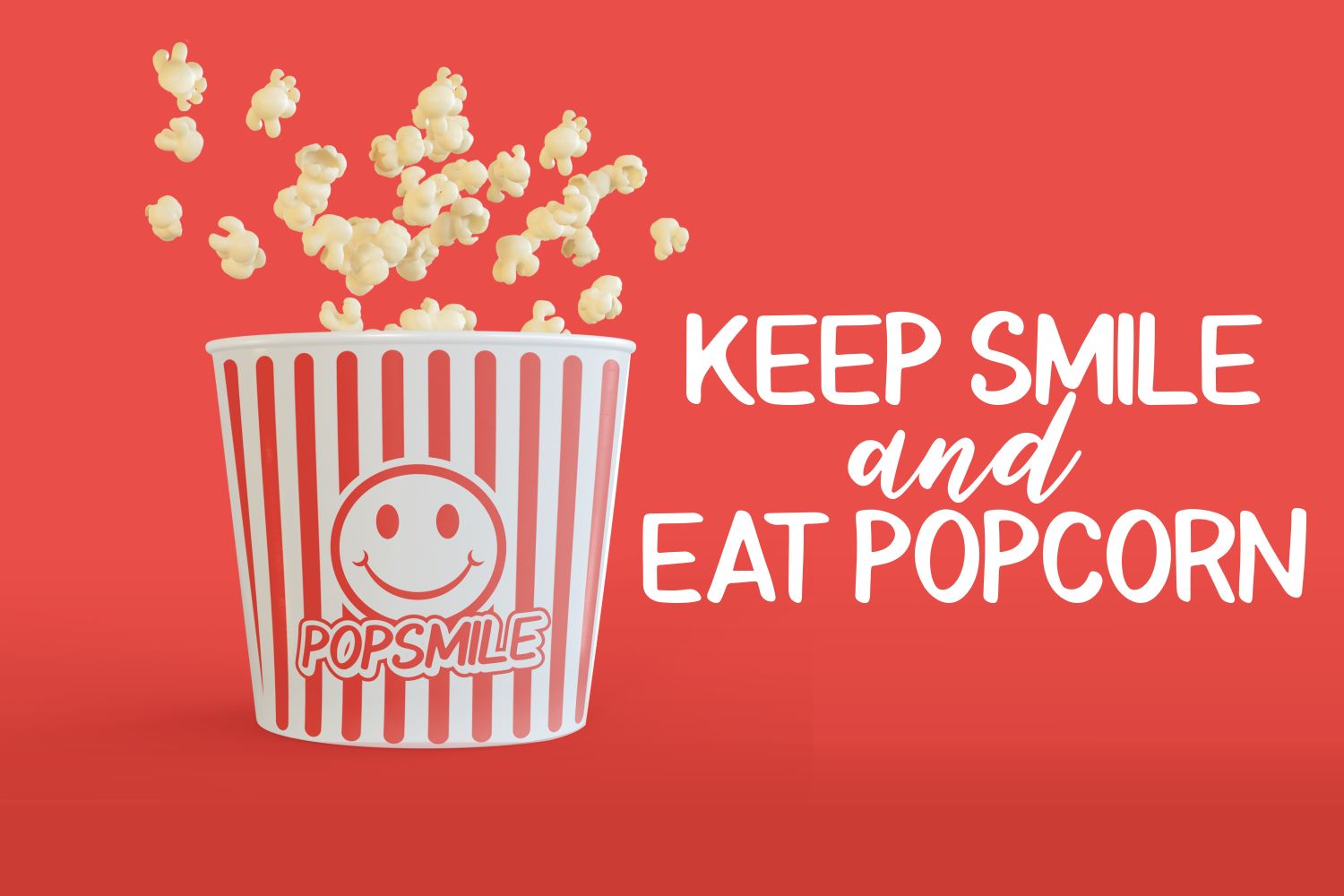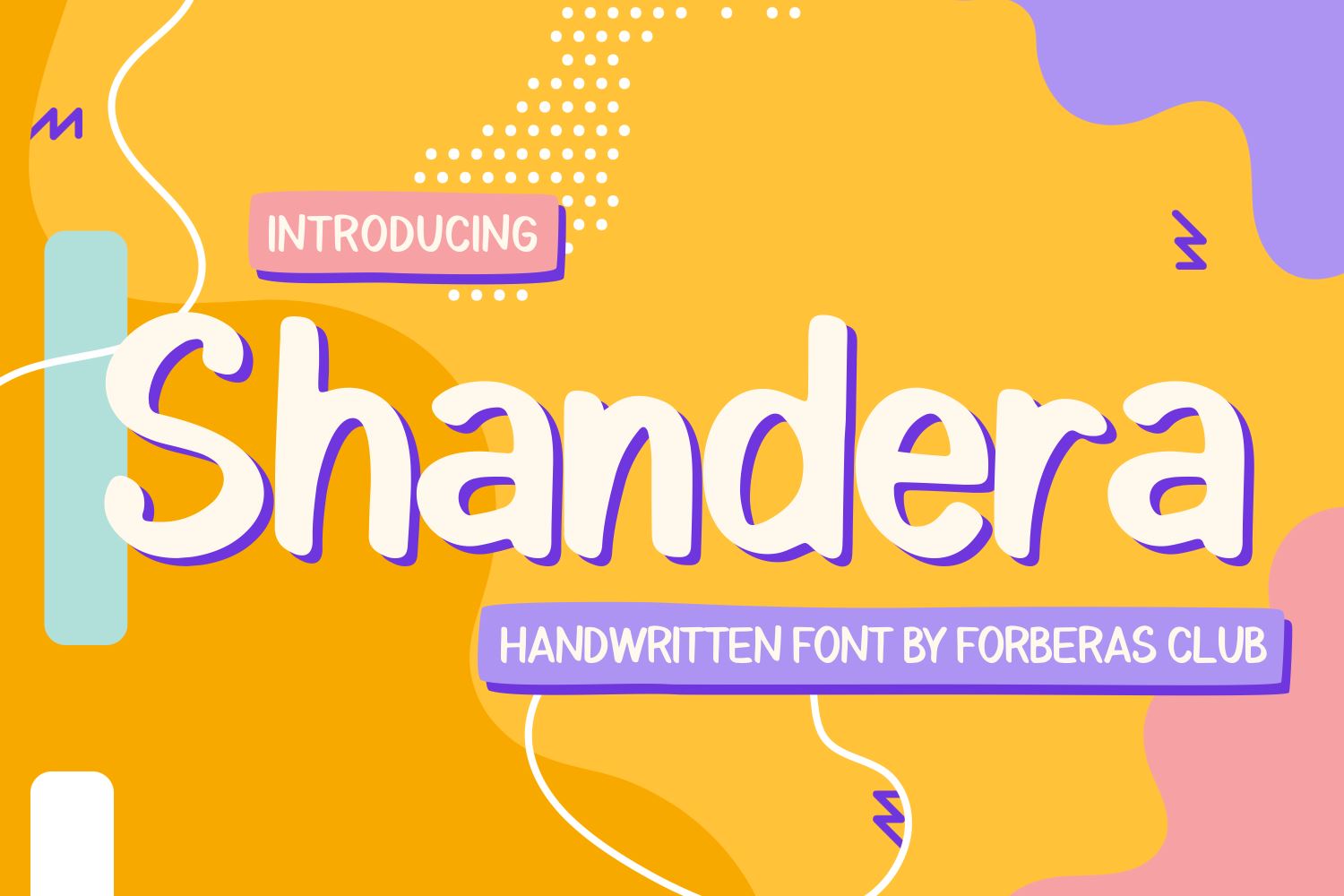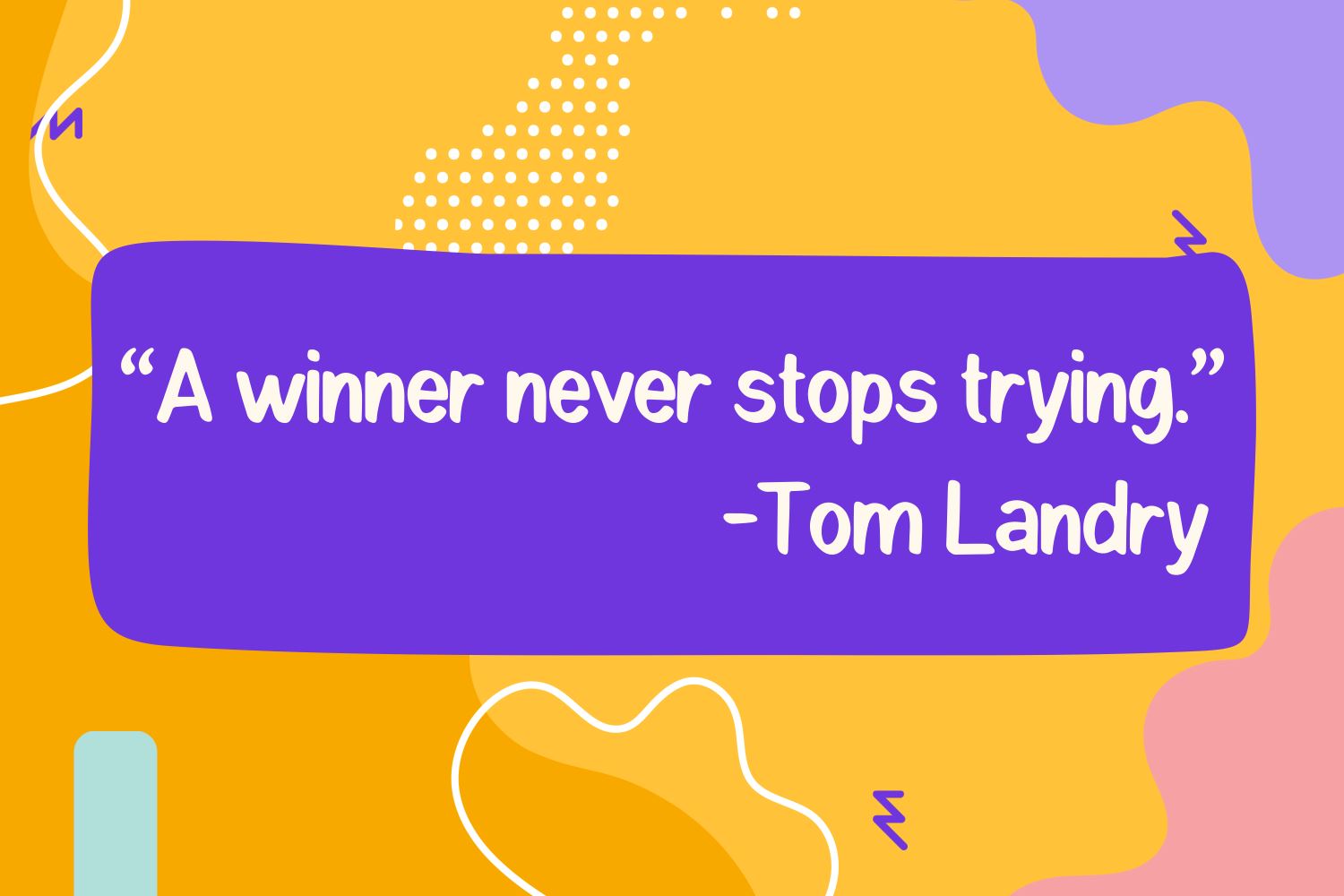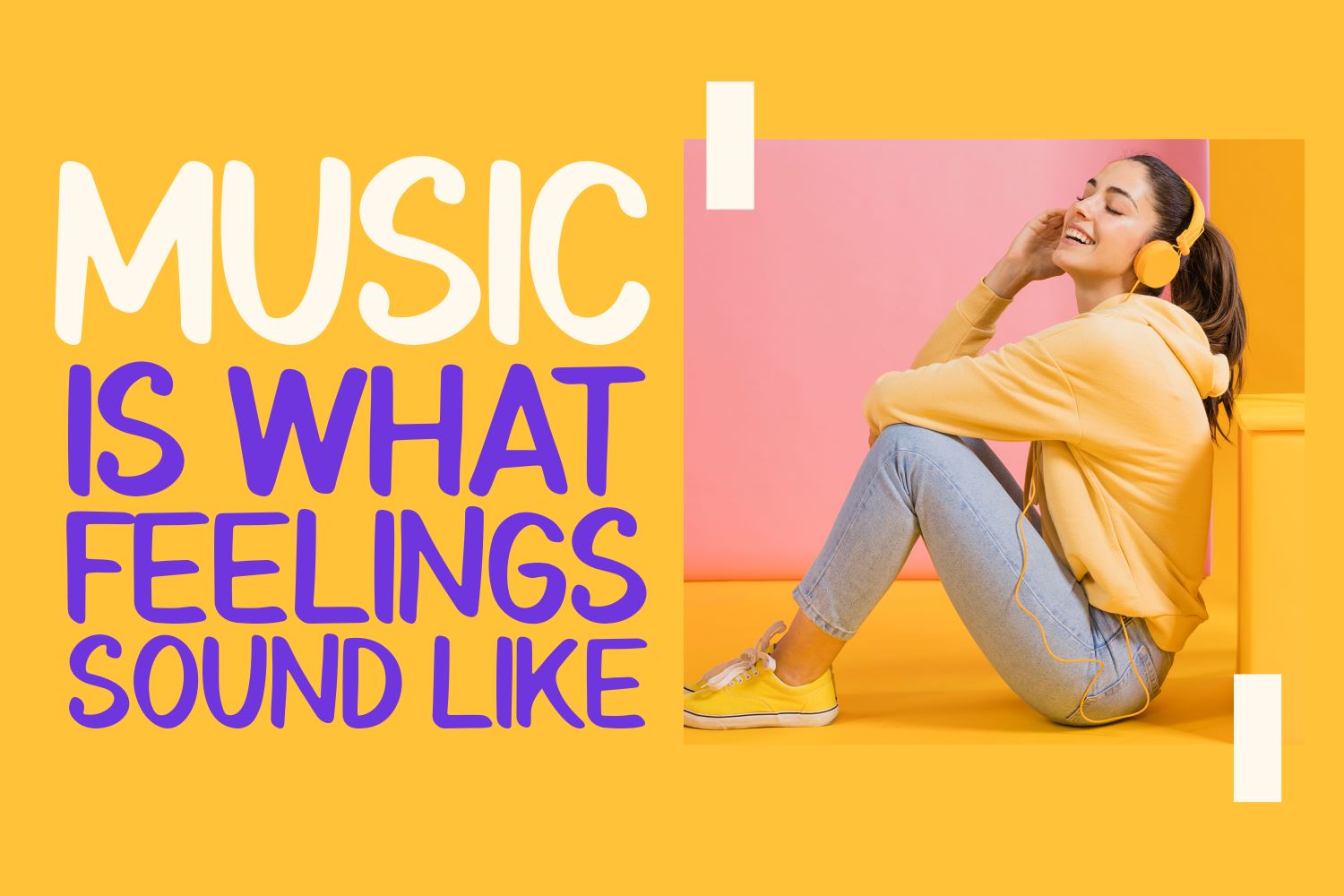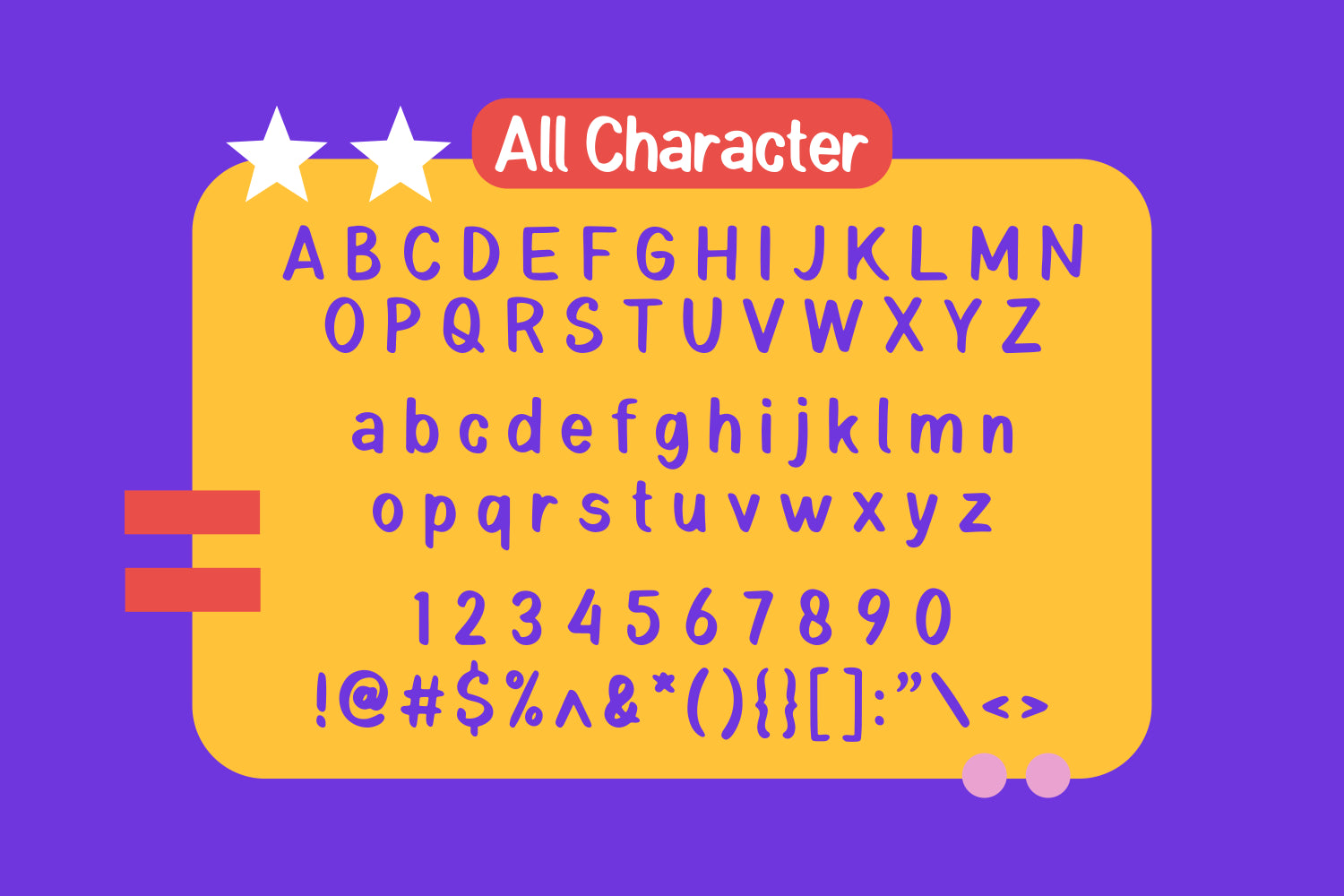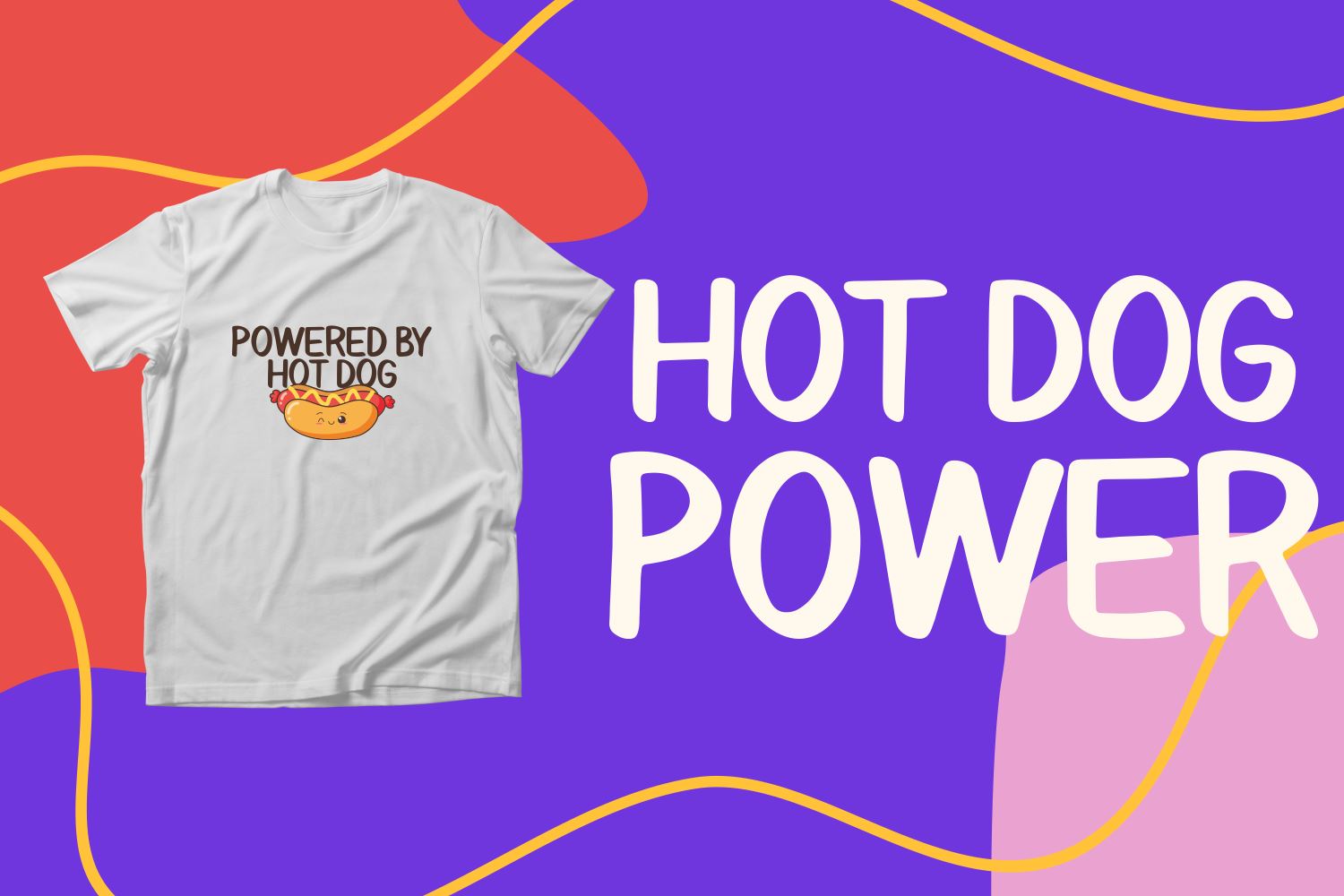
Shandera
About Shandera
Introducing Sandera Font by Forberas Club Sandera is a Modern Handwritten Font. Sandera is perfect for book cover, product packaging, branding project, megazine, social media, wedding, or just used to express words above the background.This font includes TTF and OTF, This font also multilingual support.